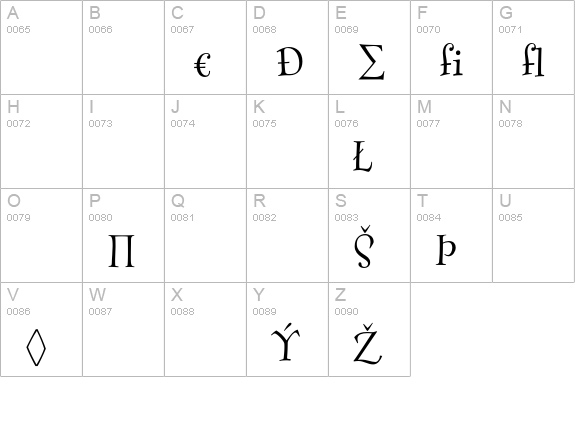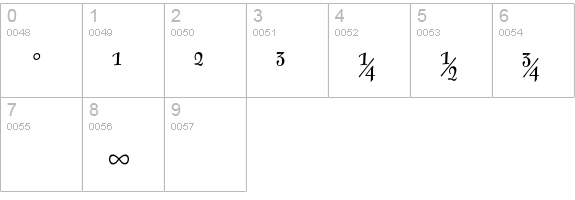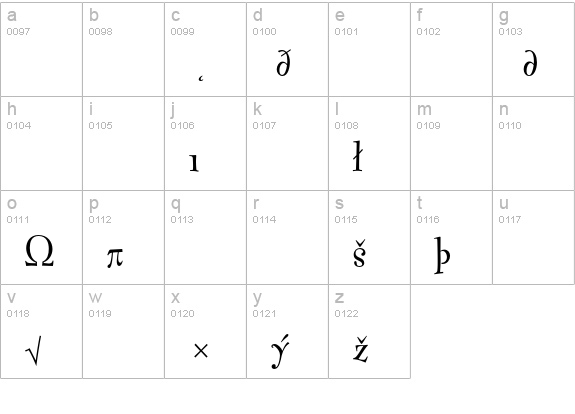
FontesqueText-RegularExpert is a classic and elegant font that exudes sophistication and charm. The timeless design of this typeface makes it perfect for a wide range of projects, from invitations to branding materials. With its clean lines and balanced proportions, FontesqueText-RegularExpert is a versatile choice that will elevate any design. What makes FontesqueText-RegularExpert even more appealing is that it is available for free download at FontsMarket.com. This means that you can easily access this beautiful font and use it in your projects without any cost. Whether you are a professional designer or a hobbyist looking to add a touch of elegance to your creations, FontesqueText-RegularExpert is a fantastic option that won't break the bank. Don't miss out on the opportunity to enhance your designs with the timeless beauty of FontesqueText-RegularExpert. Download it for free today from FontsMarket.com and start creating stunning visuals that will captivate your audience.